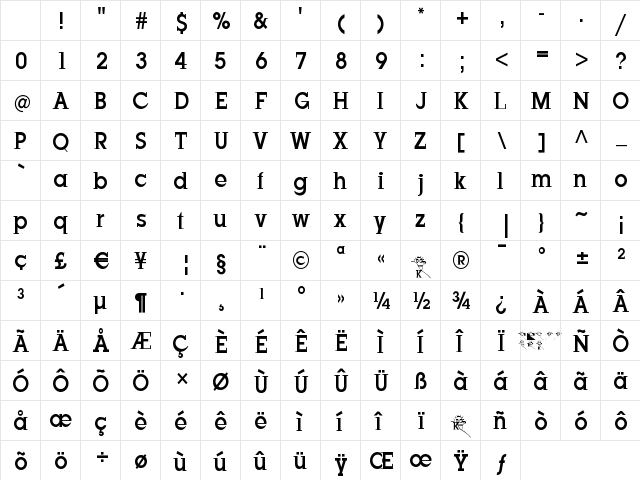
JustOldFashion-Condensed is a composed and adaptable typeface that performs quietly and consistently across a wide range of design contexts. Its narrow stance lets it pack a punch even in space-constrained designs.
Pro Tip: Use JustOldFashion-Condensed in both headline and body roles to test its range before committing to a single application.